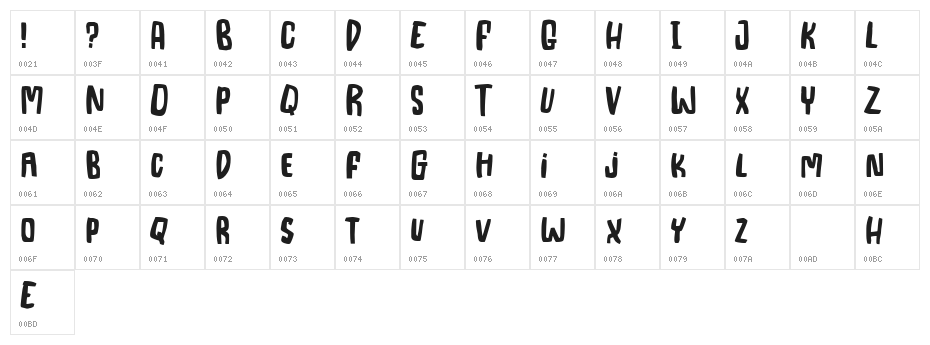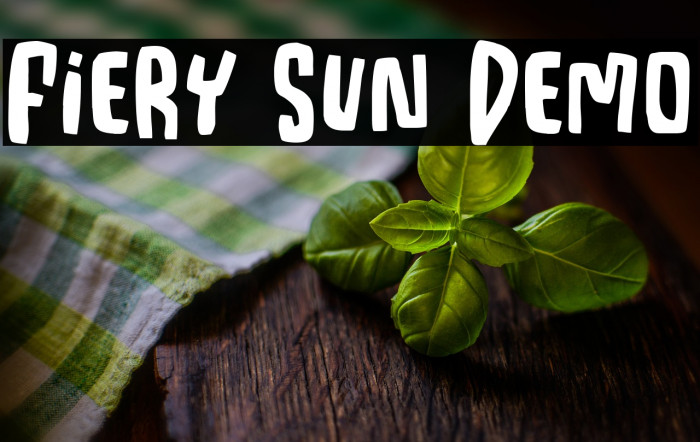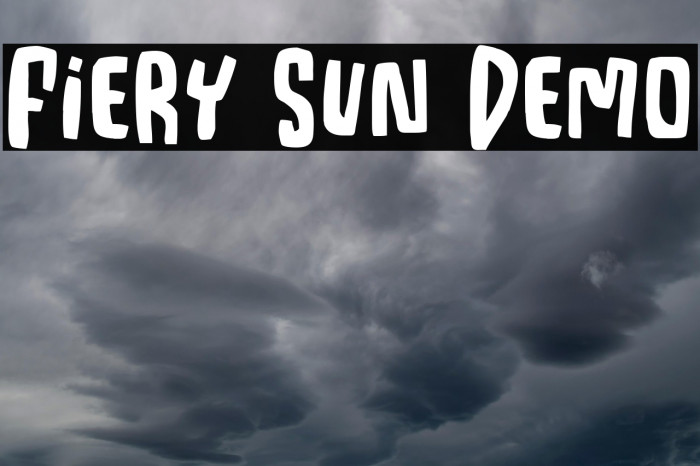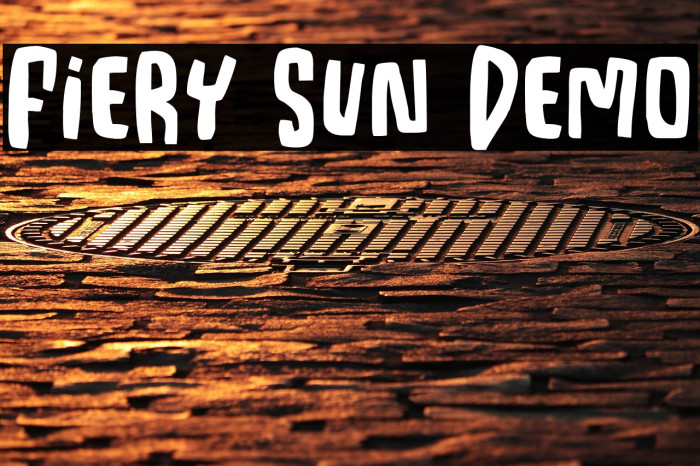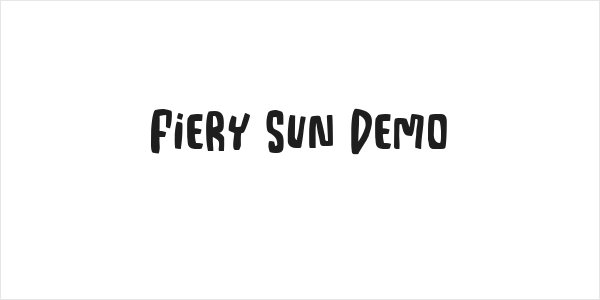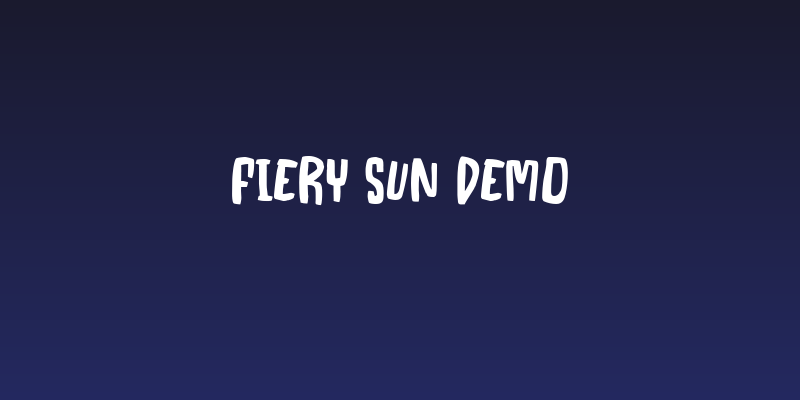
Fiery Sun Demo Font
Fiery Sun Demo Description
This font features a bold and playful design with a hand-drawn aesthetic. The characters are slightly irregular, giving it a whimsical and dynamic appearance. The strokes are thick and consistent, contributing to a strong visual presence. The uppercase and lowercase letters maintain a cohesive style, while the numbers and special characters are crafted to match the overall playful theme. This font is ideal for projects that require a fun and engaging look, such as children's books, posters, or creative branding.
| Proposed Projects | Children's books, posters, creative branding, playful invitations. |